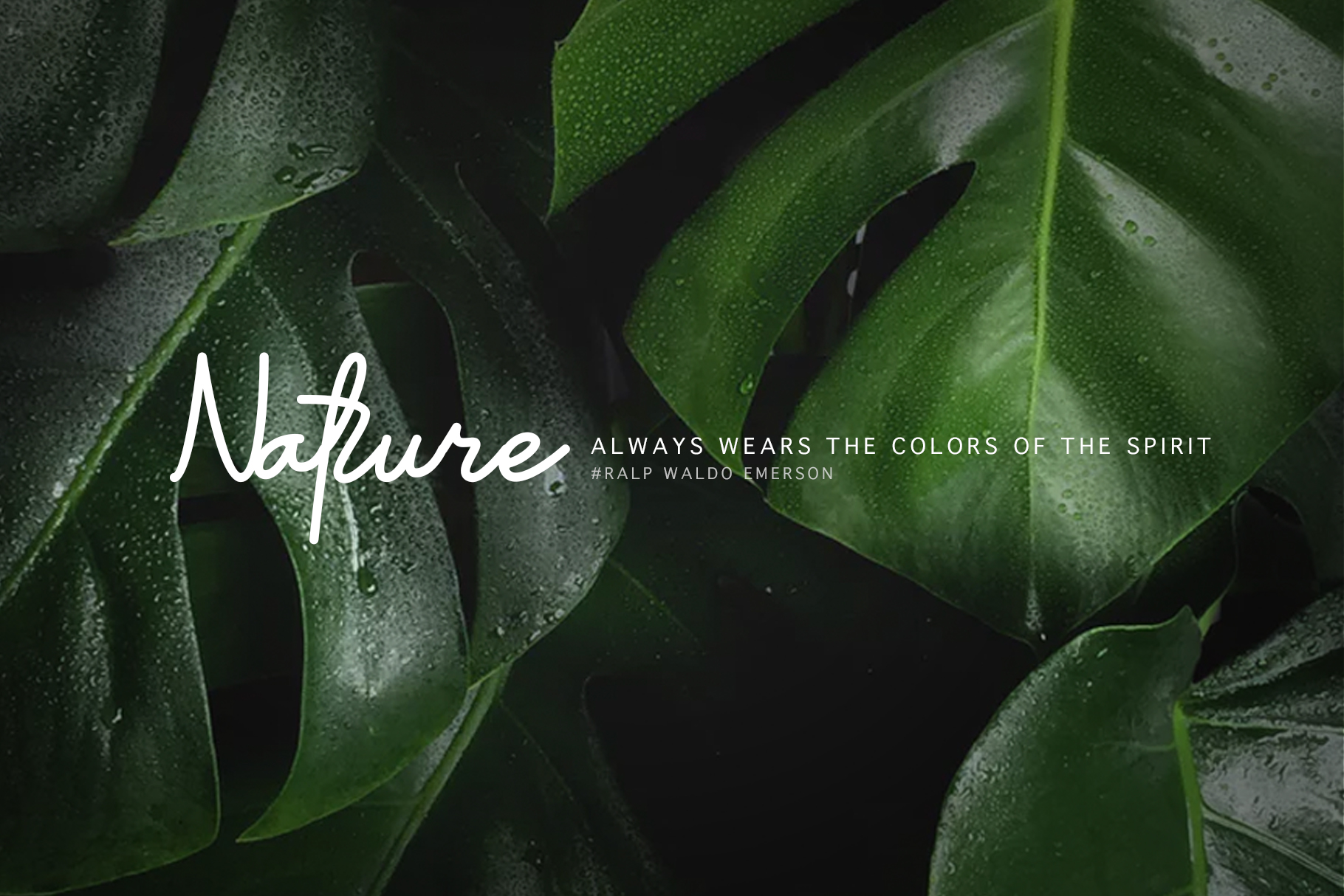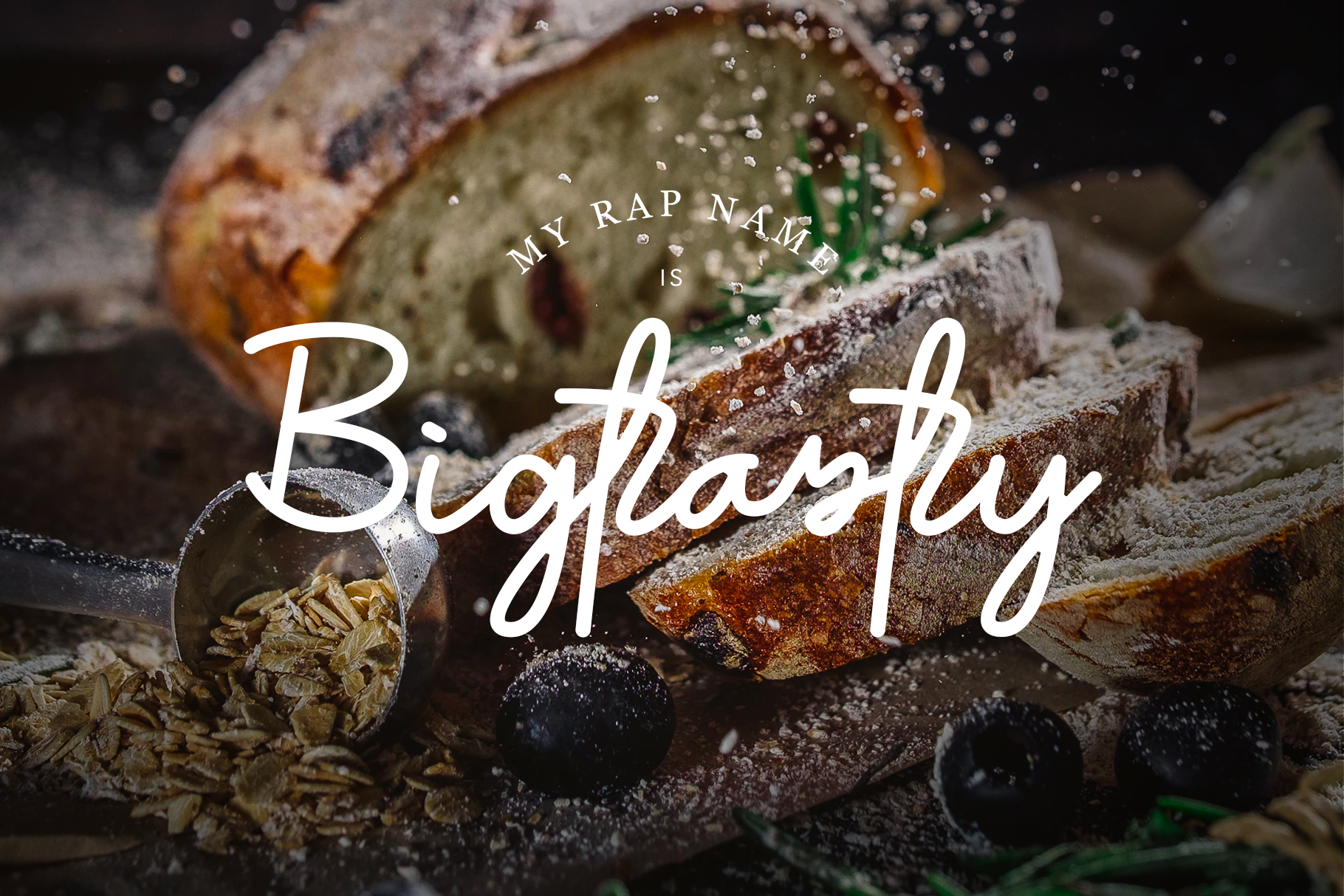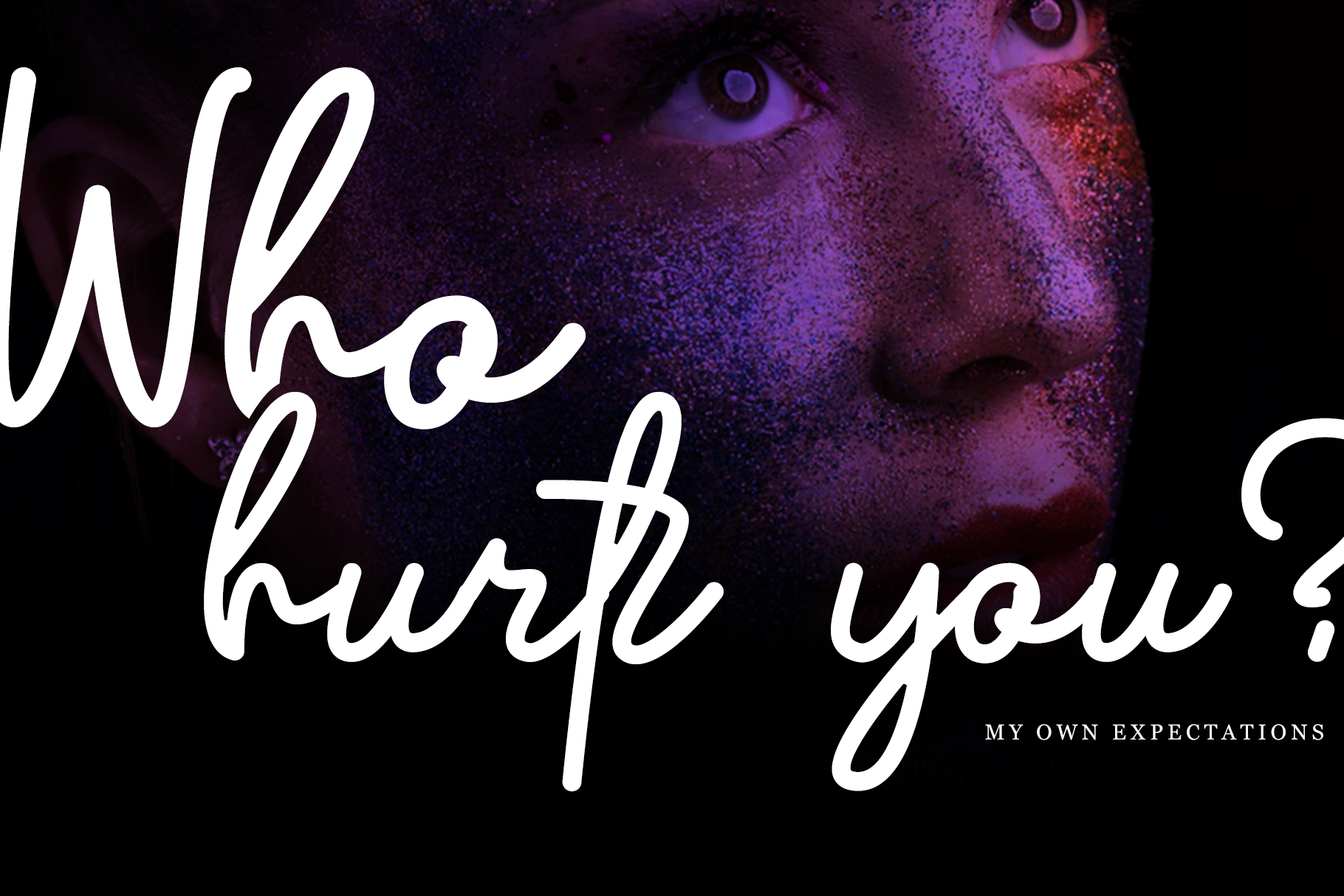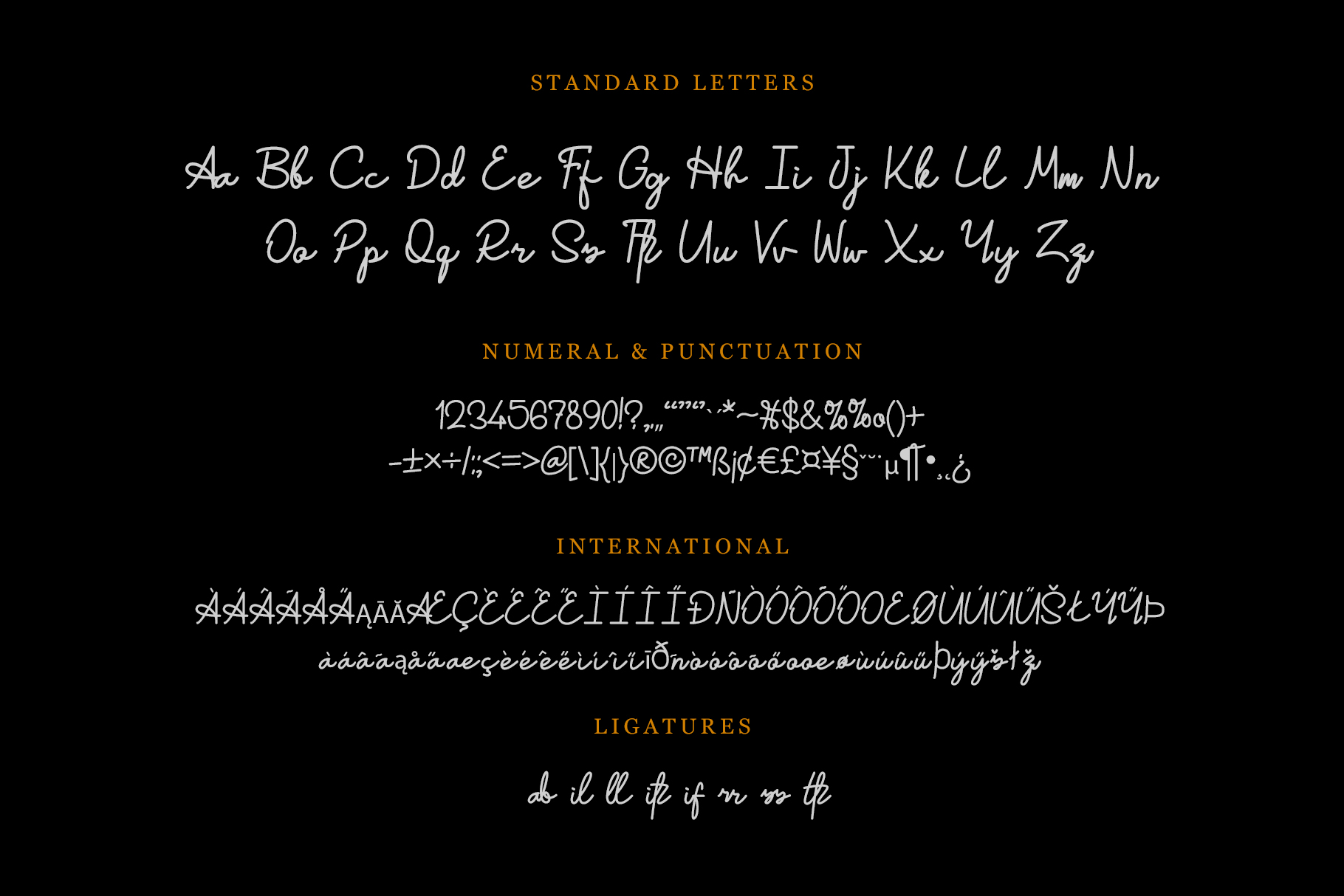
Rantca Free Font
Rantca Free Font is perfect for a branding project, banner, logo flayer, and anything that needs a nice shape from the font. Rantca Free Font is perfect for a branding project, banner, logo flayer, and anything that needs a nice shape from the font. This free typeface was designed by a talented SkaΒ .la. If you like it don’t forget to check out the full version.